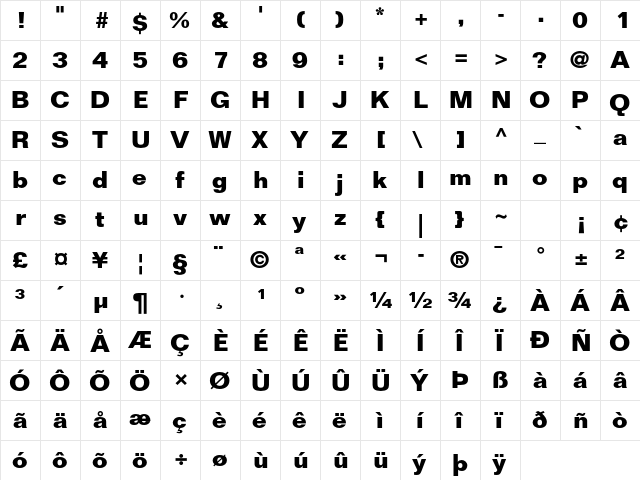
Folio Std Bold
| Designer | Konrad F. Bauer, Walter Baum |
Design Context for Folio Std Typeface
Folio Std offers clean, dependable letterforms without strong stylistic allegiance, making it a practical choice for designers who need flexibility. The heavy weight commands attention and anchors typographic hierarchies.